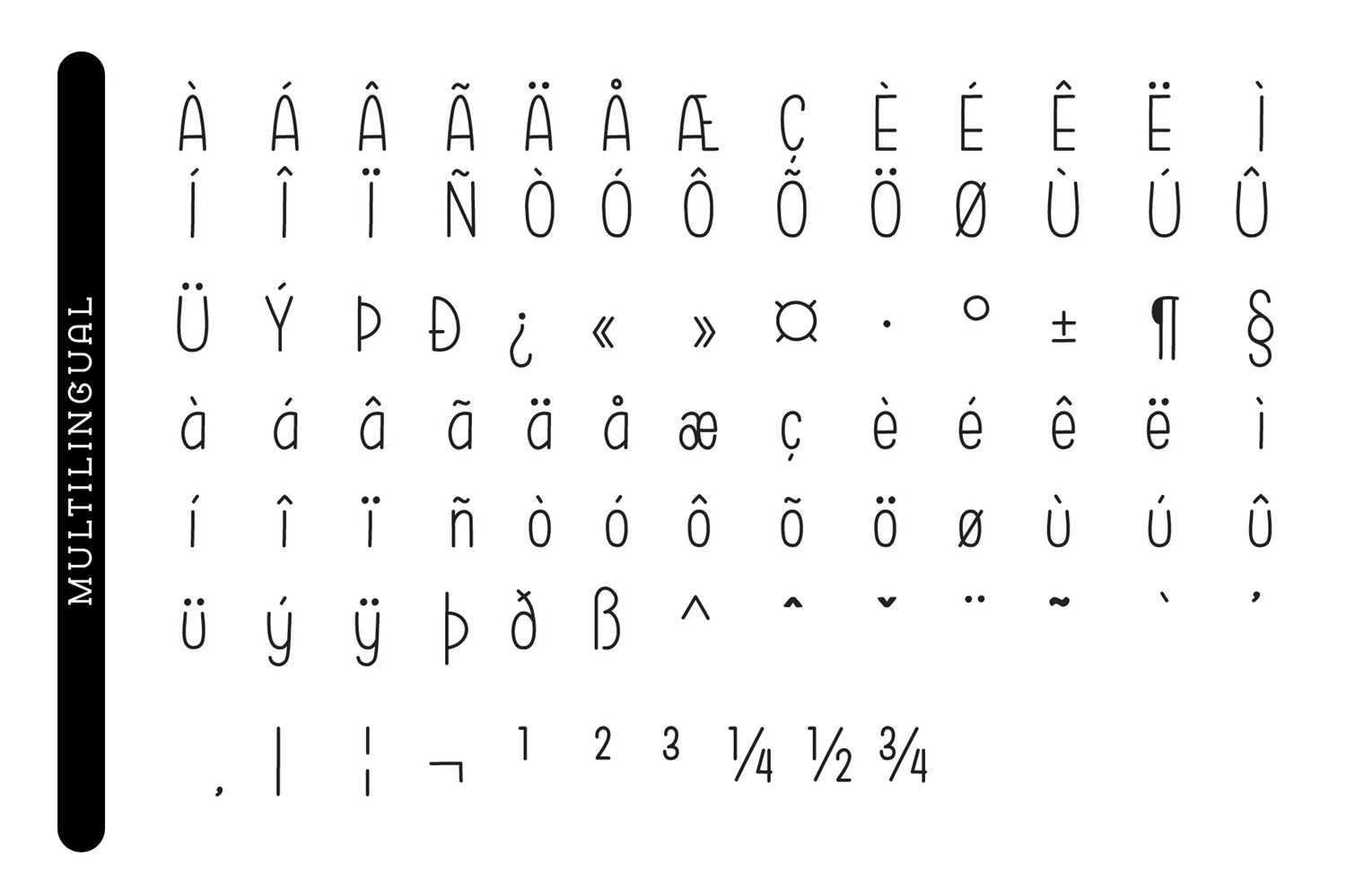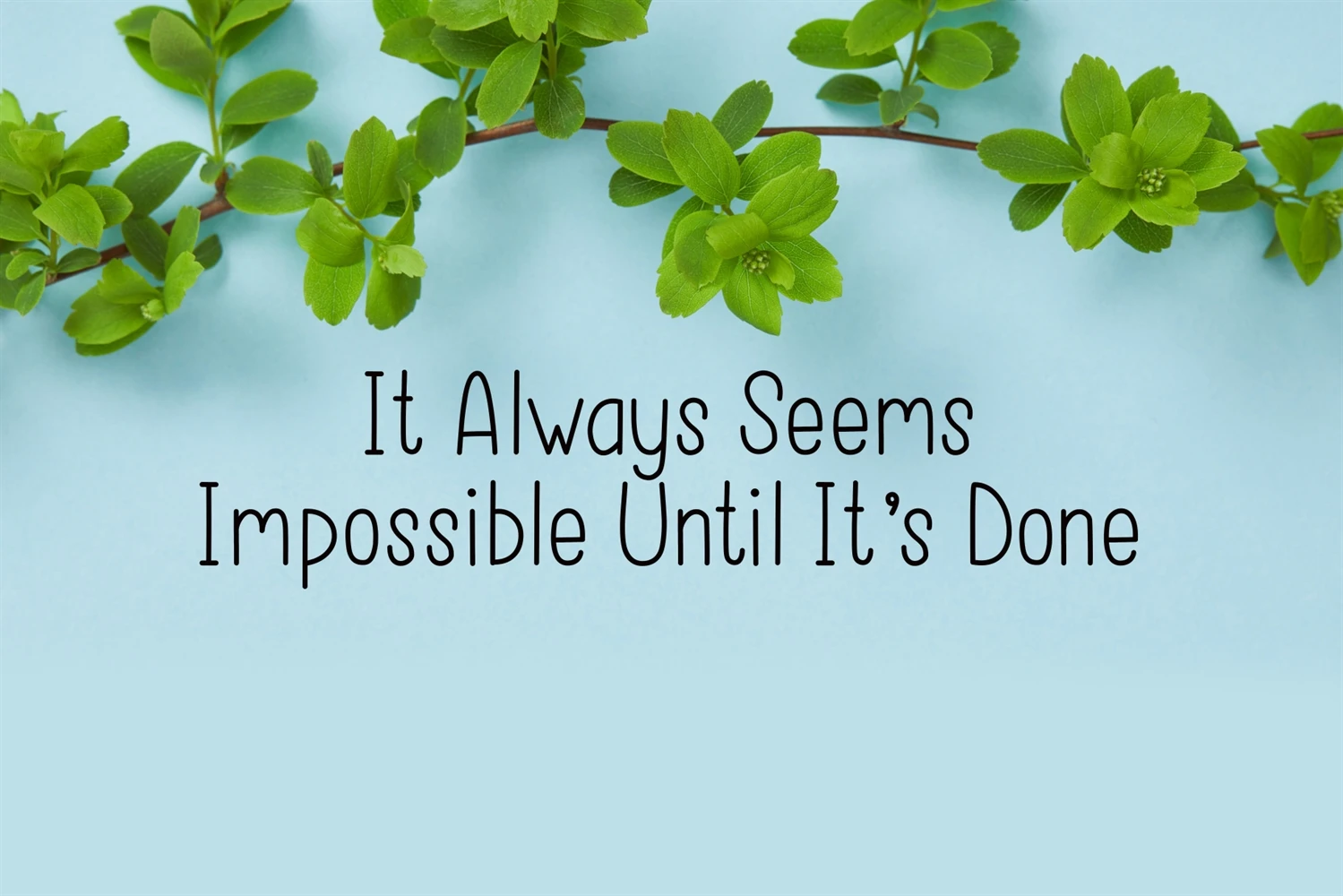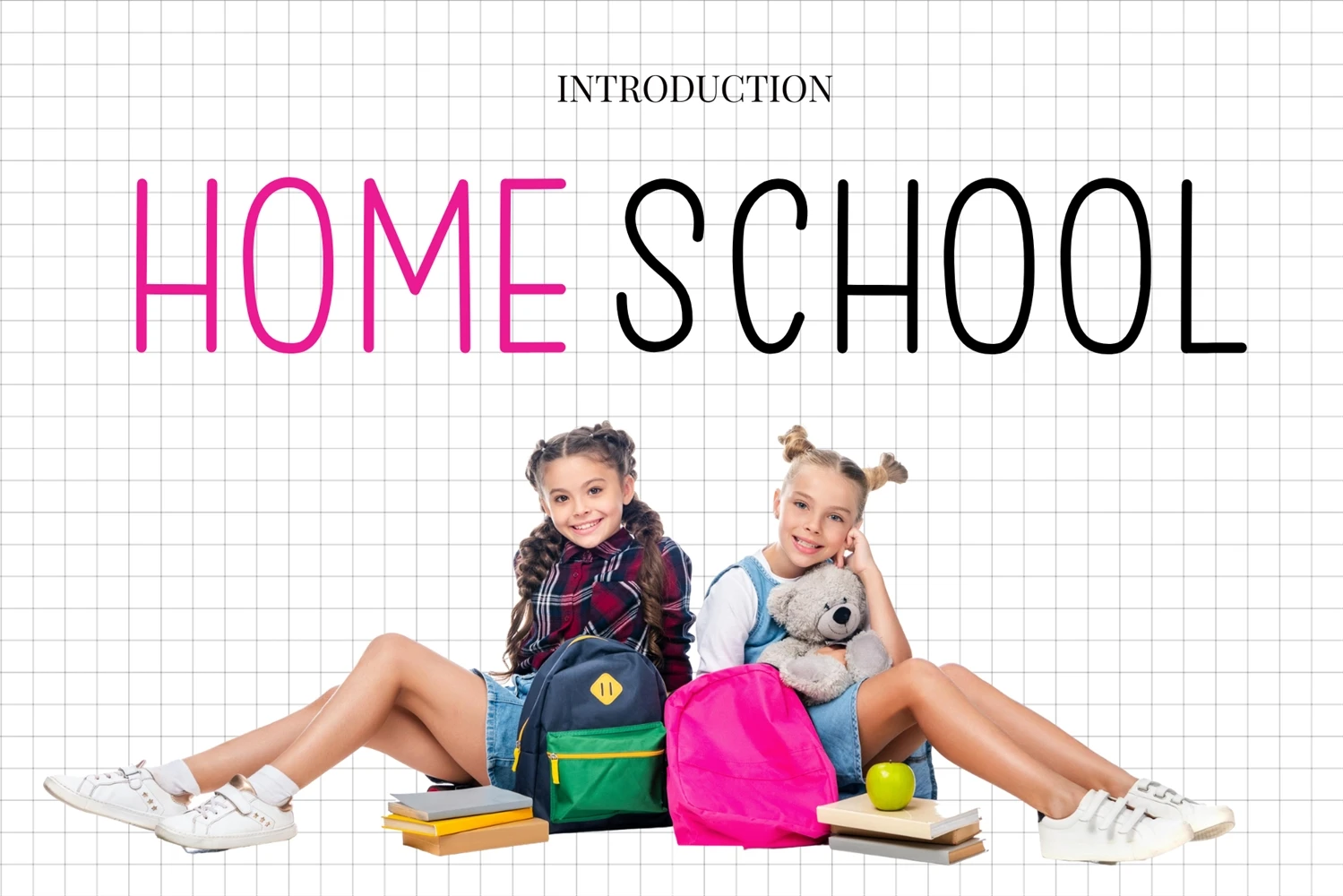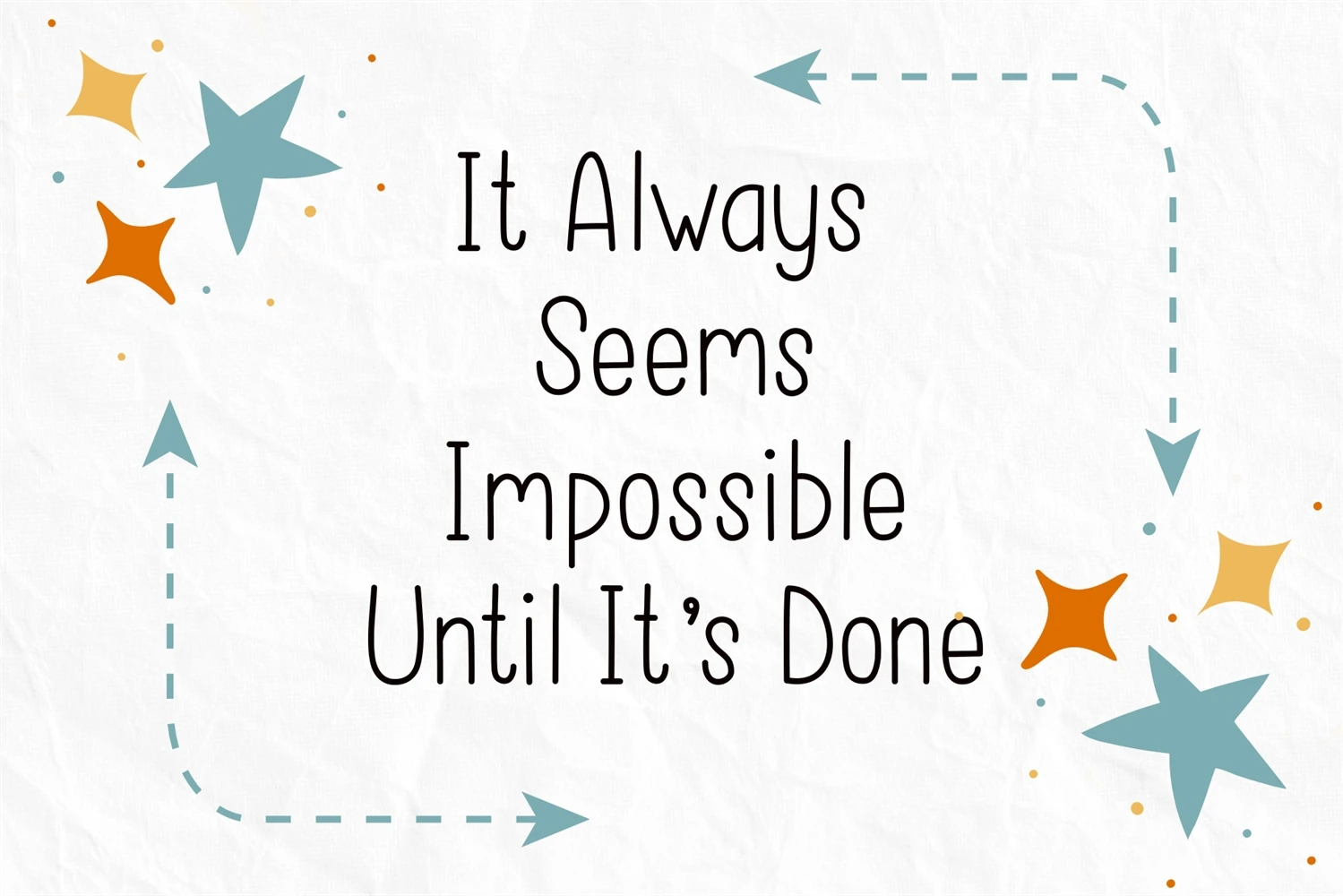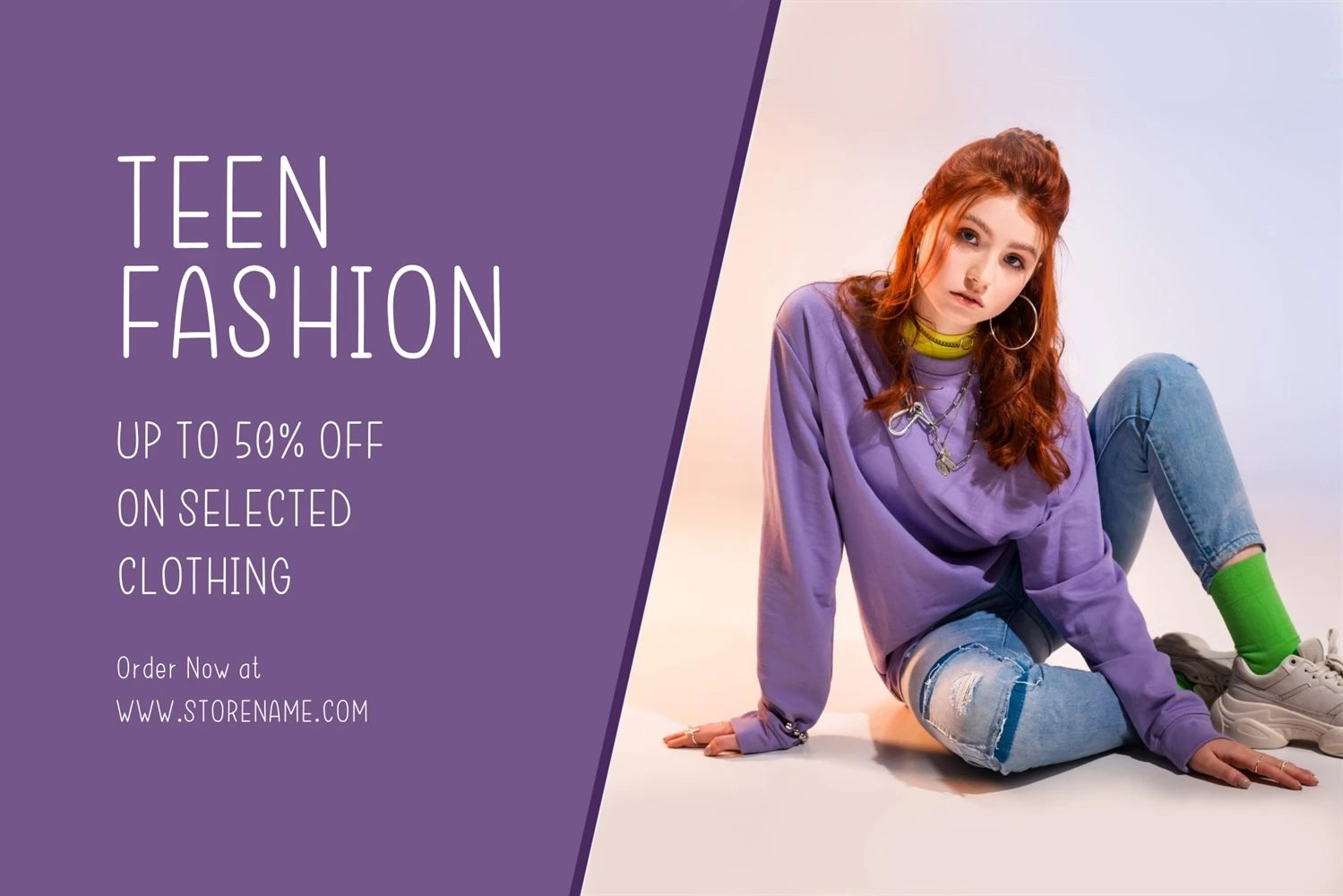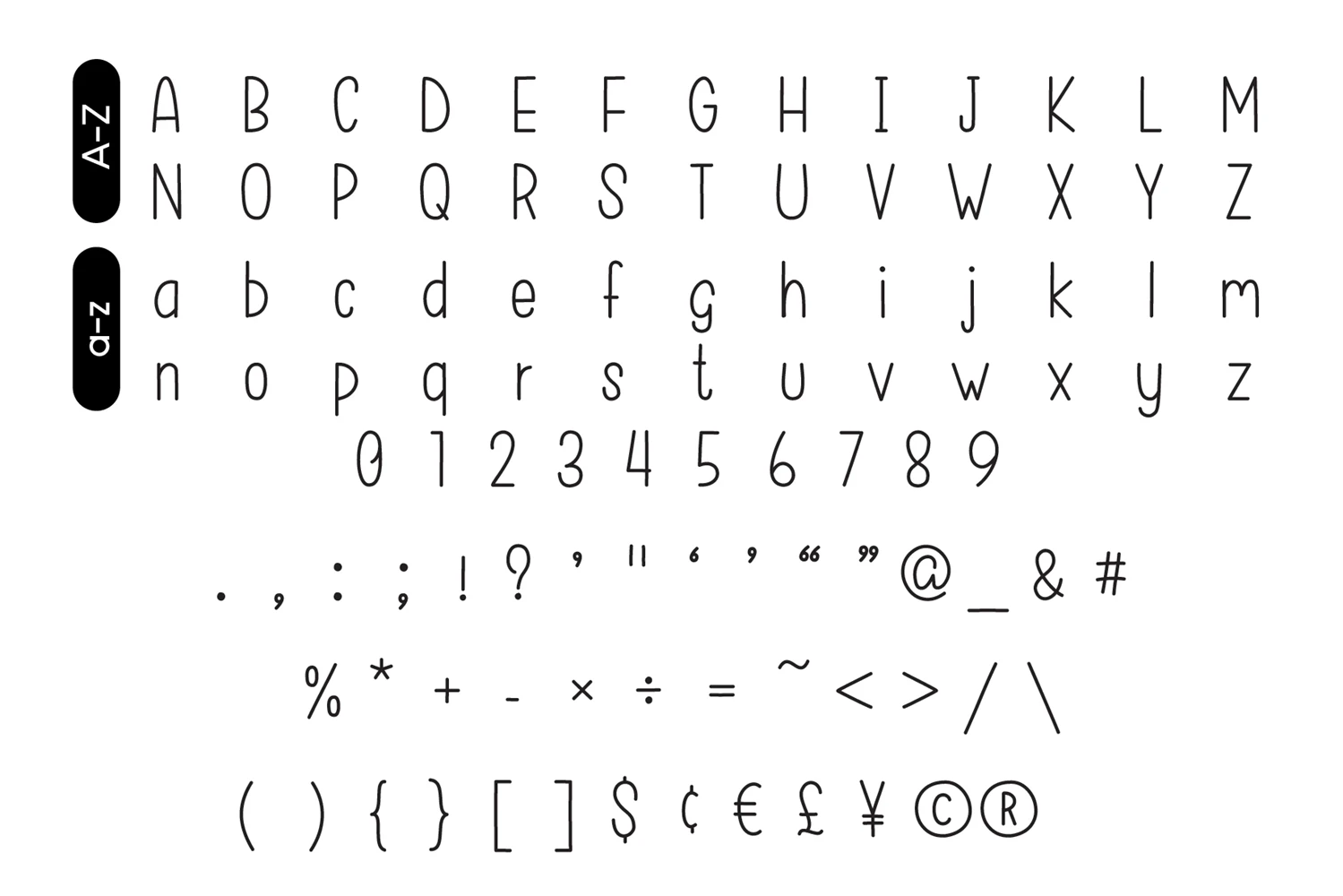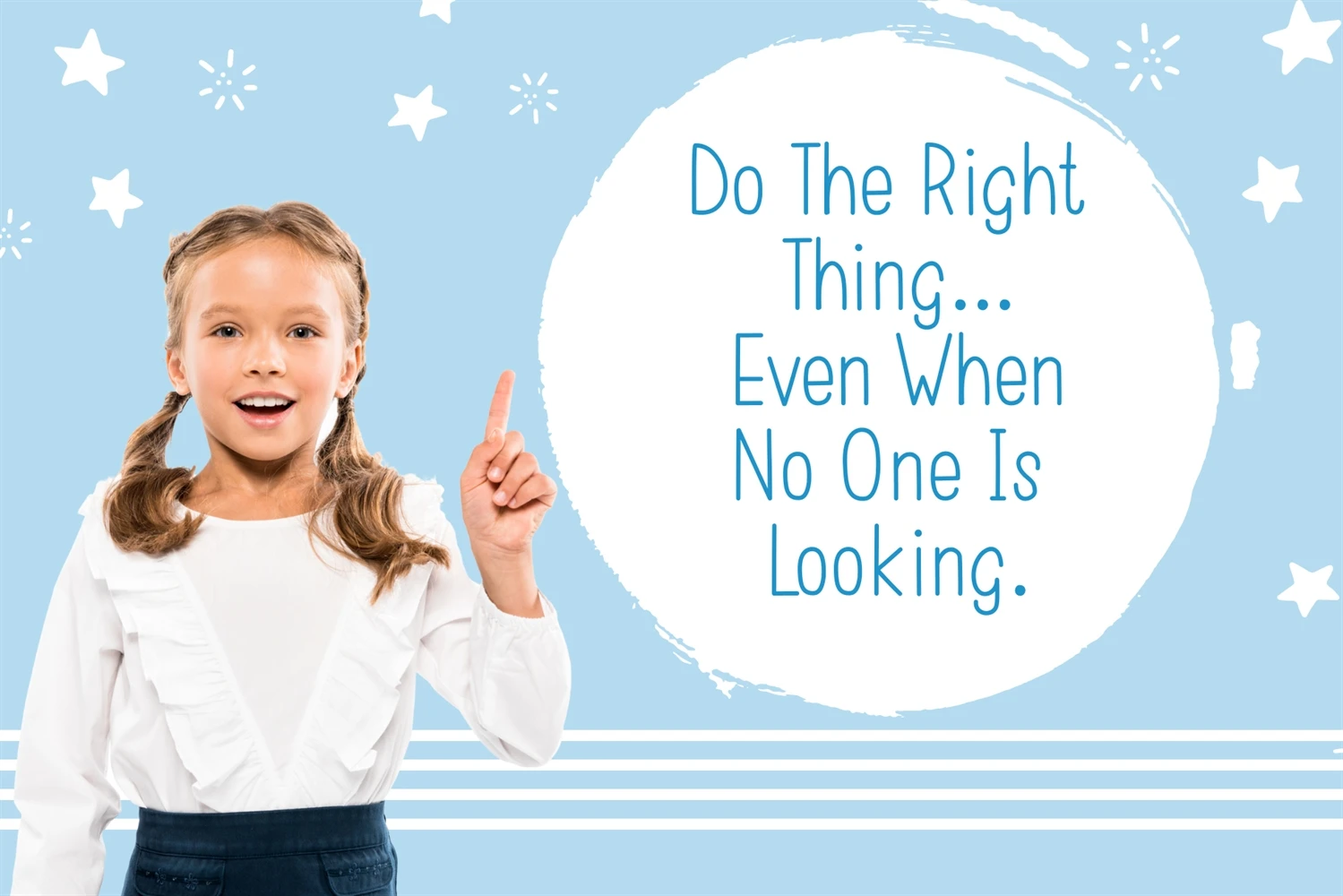
Home School is a tall and cute, easy-to-read sans serif font. You can use it for various projects, such as blog posts, logos, branding, ads, invitations, greeting cards, planners, photo albums, decorations, and much more.